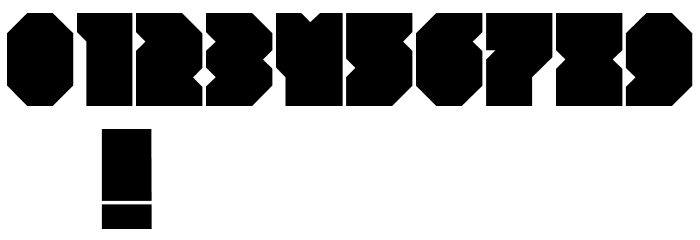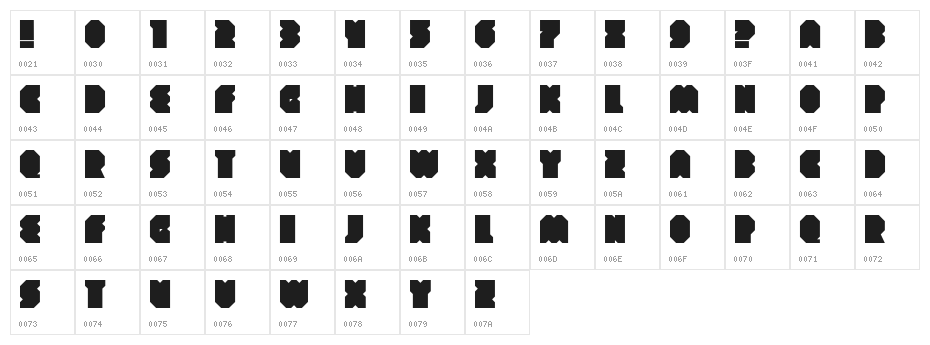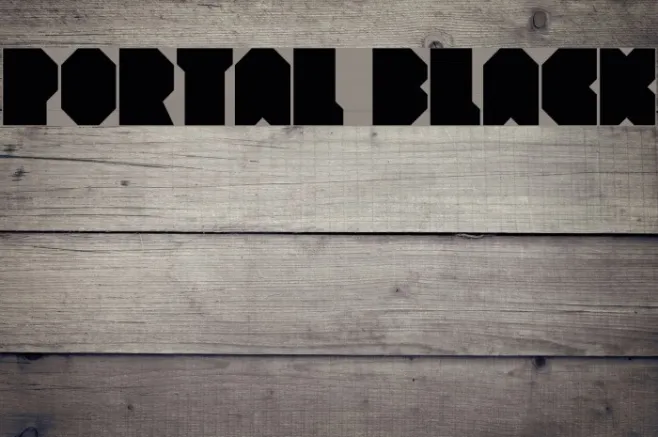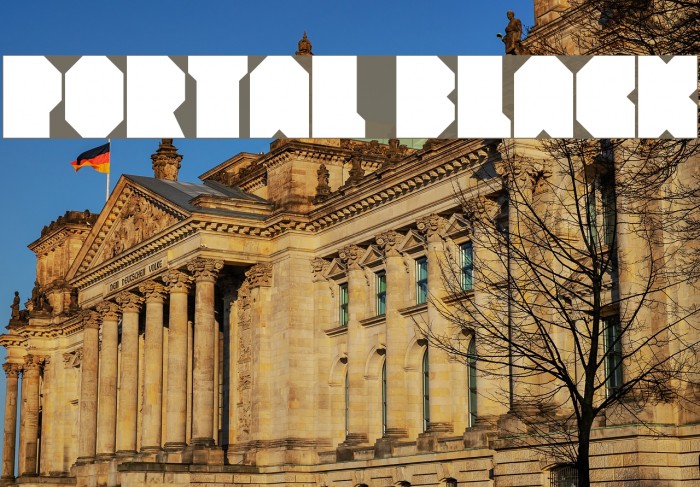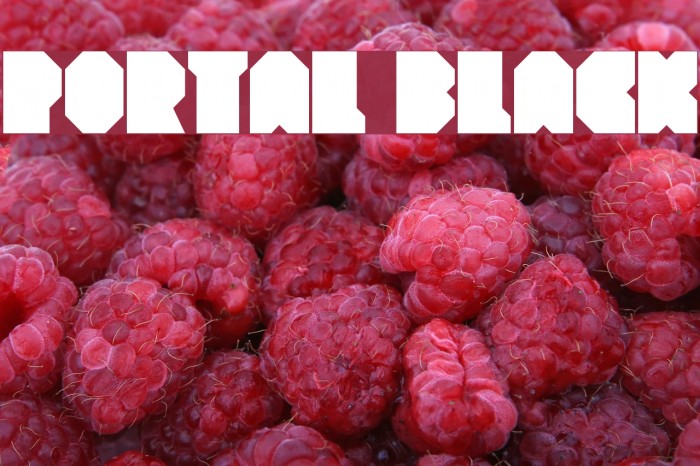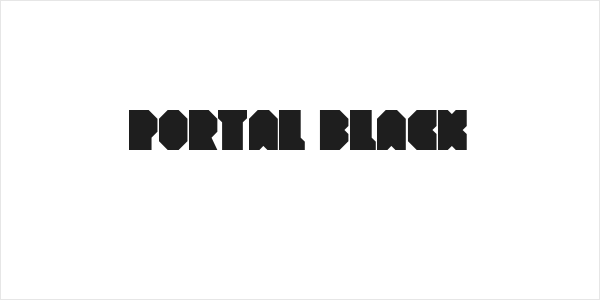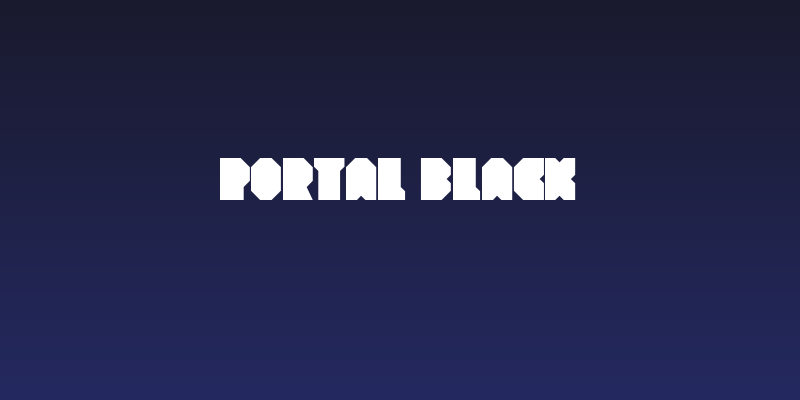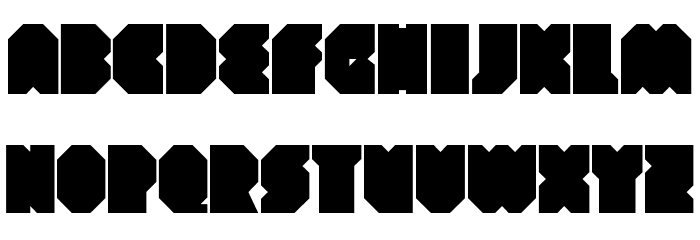
Portal Black Font
Portal Black Description
This font features a bold and geometric design with a strong, block-like appearance. Each character is constructed with sharp angles and a consistent thickness, creating a uniform and cohesive look. The uppercase and lowercase letters maintain a similar style, emphasizing the font's modern and futuristic aesthetic. The numbers and special characters are designed to match the boldness and geometric nature of the alphabet, ensuring a seamless integration across all characters. This font's unique style makes it stand out, ideal for projects that require a strong visual impact.